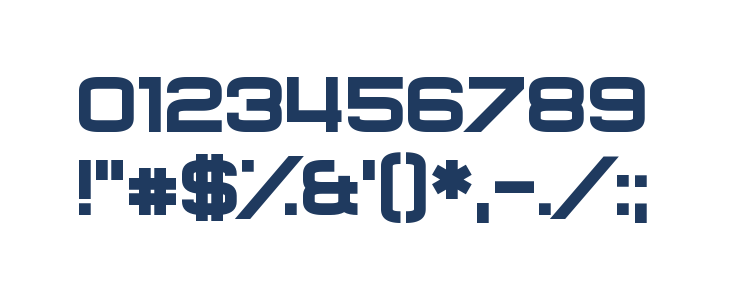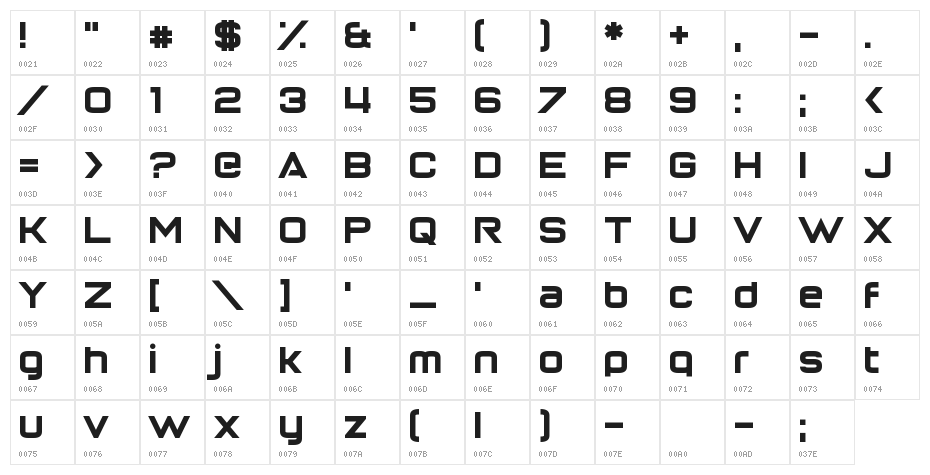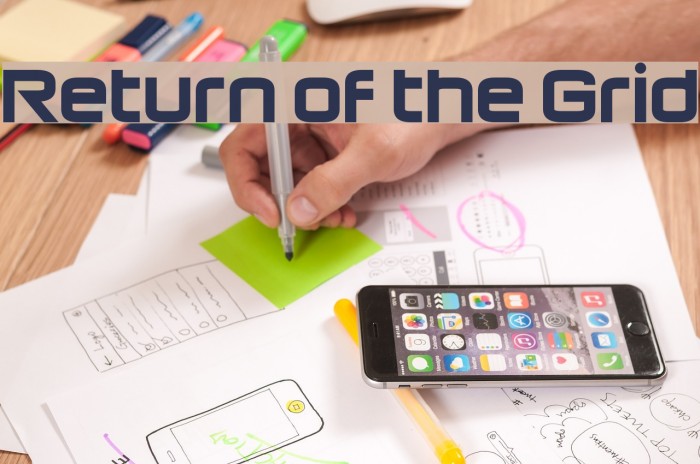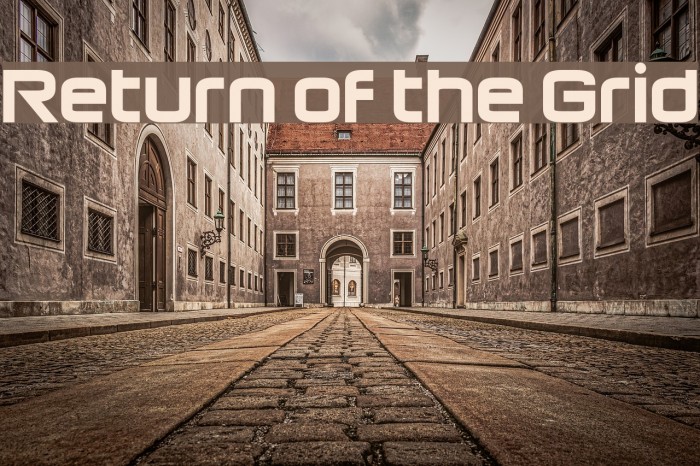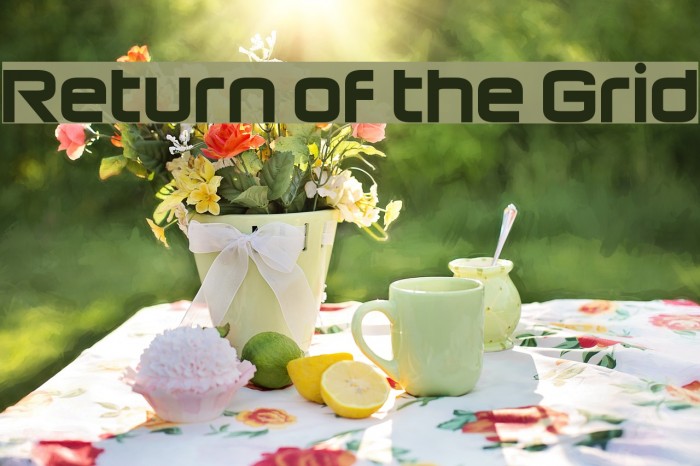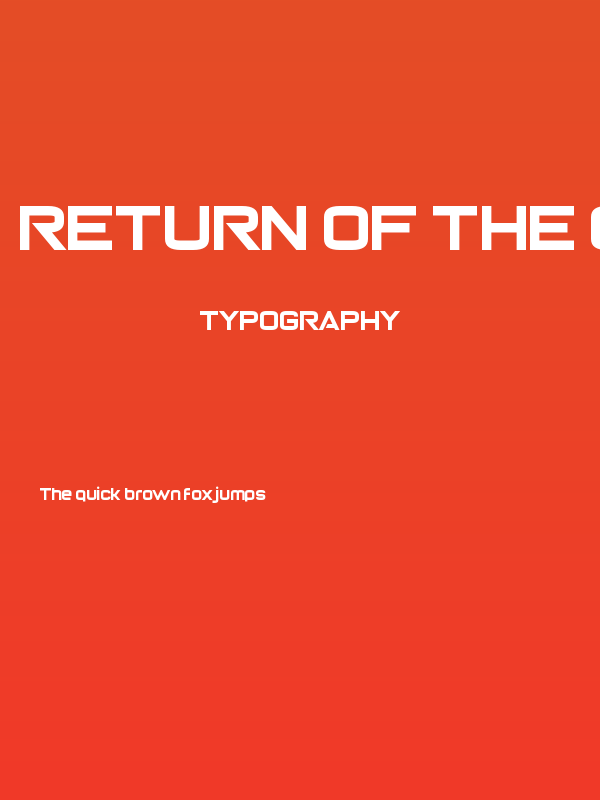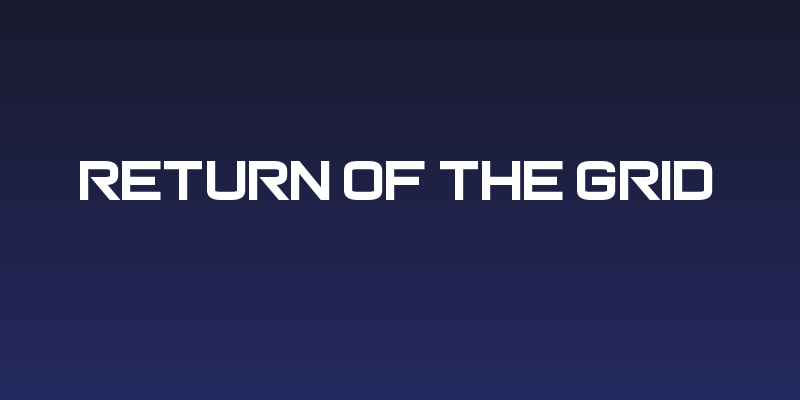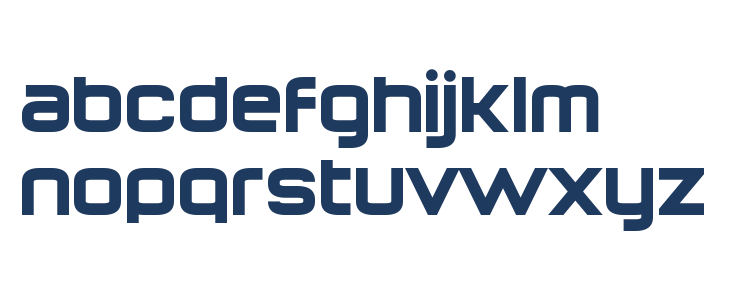
Return of the Grid Font
Return of the Grid Description
This font features a bold and modern design with a geometric structure. The characters are wide and have a consistent stroke width, giving them a strong and impactful appearance. The uppercase letters are particularly striking with their angular shapes and clean lines. The lowercase letters maintain the same geometric style, ensuring uniformity across the typeface. Numbers and special characters are designed to match the boldness and modernity of the letters, making this font versatile for various uses.